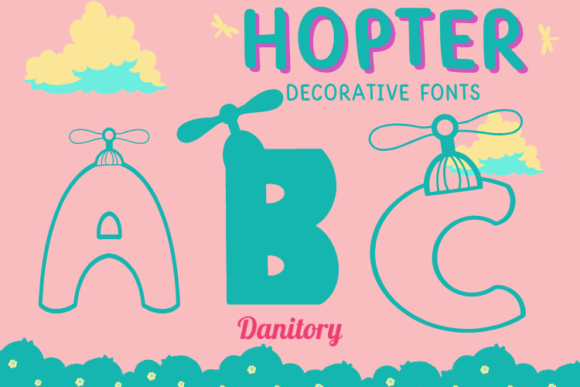
Hopter is an attractive and modern decorative font that features tiny propellers on top of each letter, adding a unique and playful touch to any design project. Its clean lines and geometric shapes make it perfect for branding, packaging, and other creative applications.